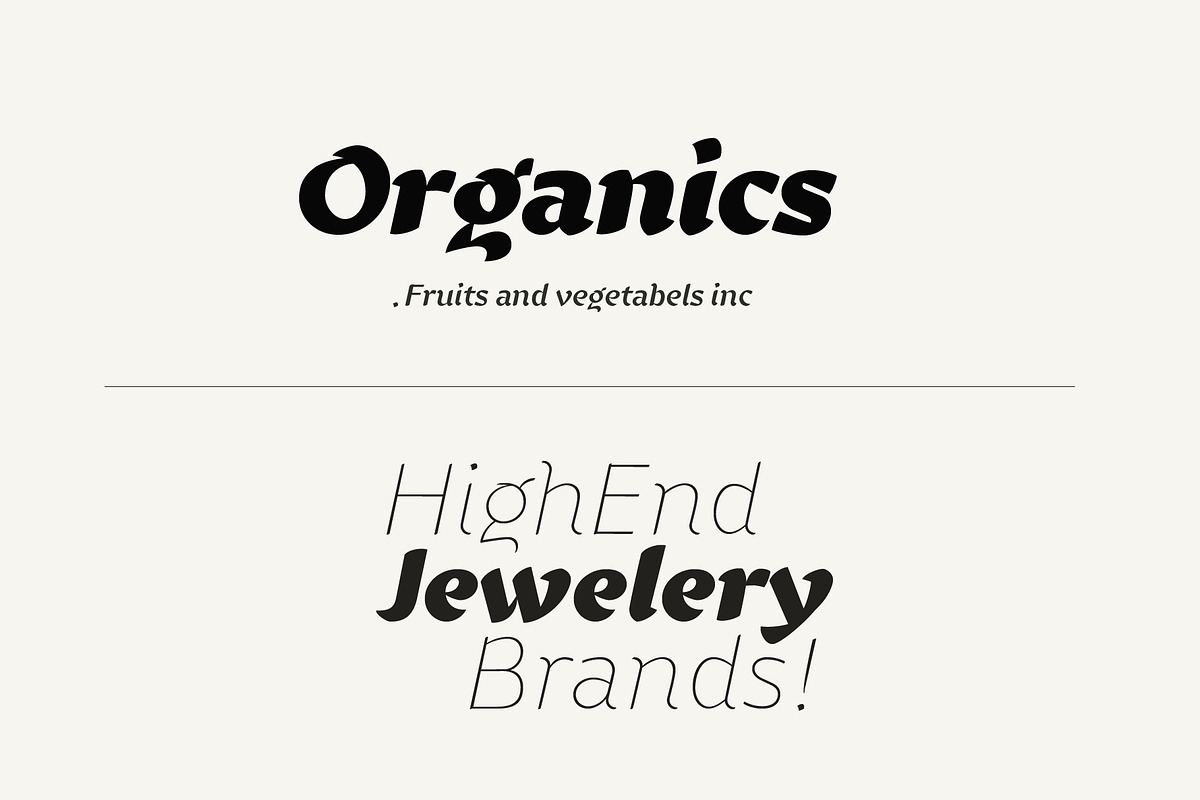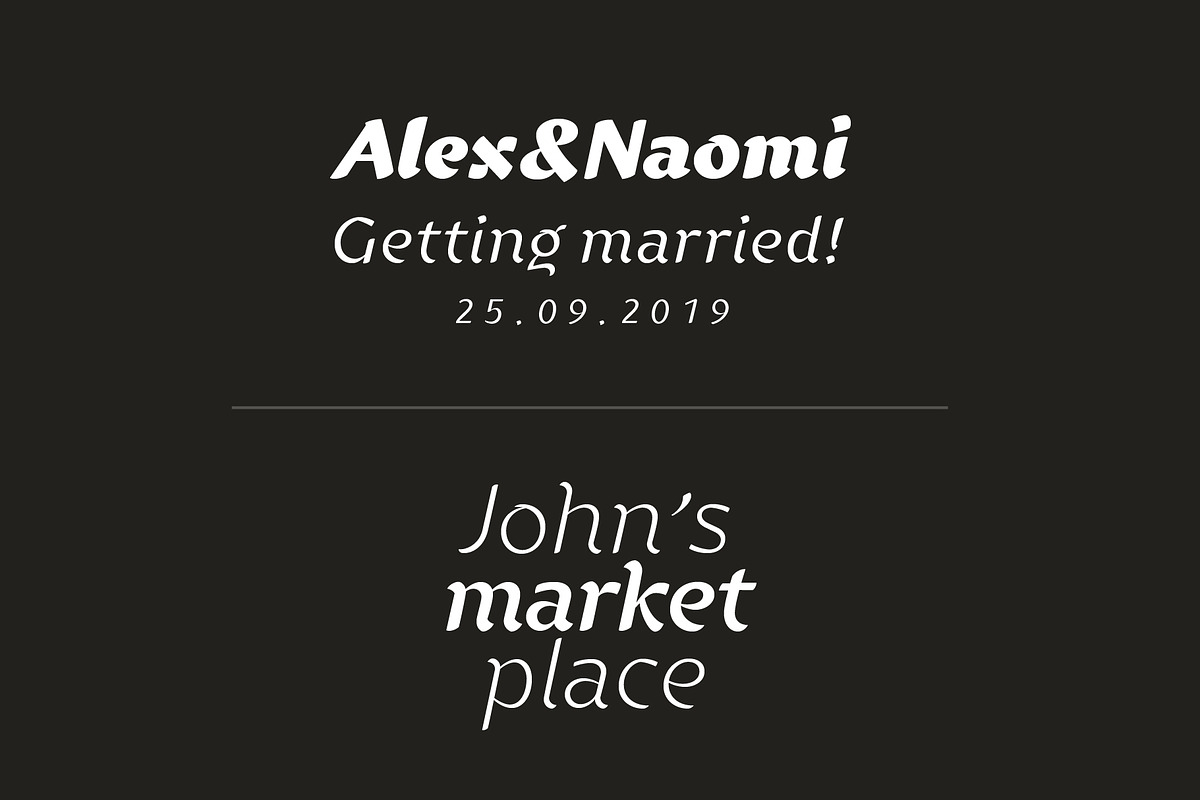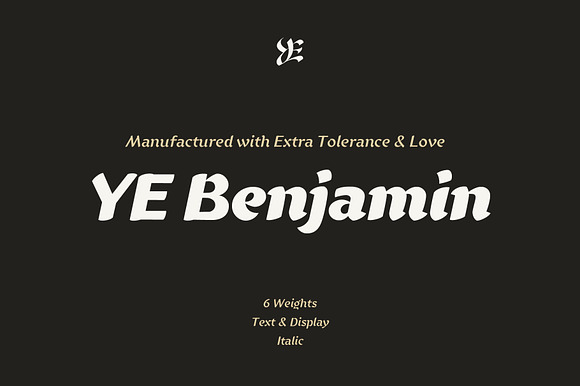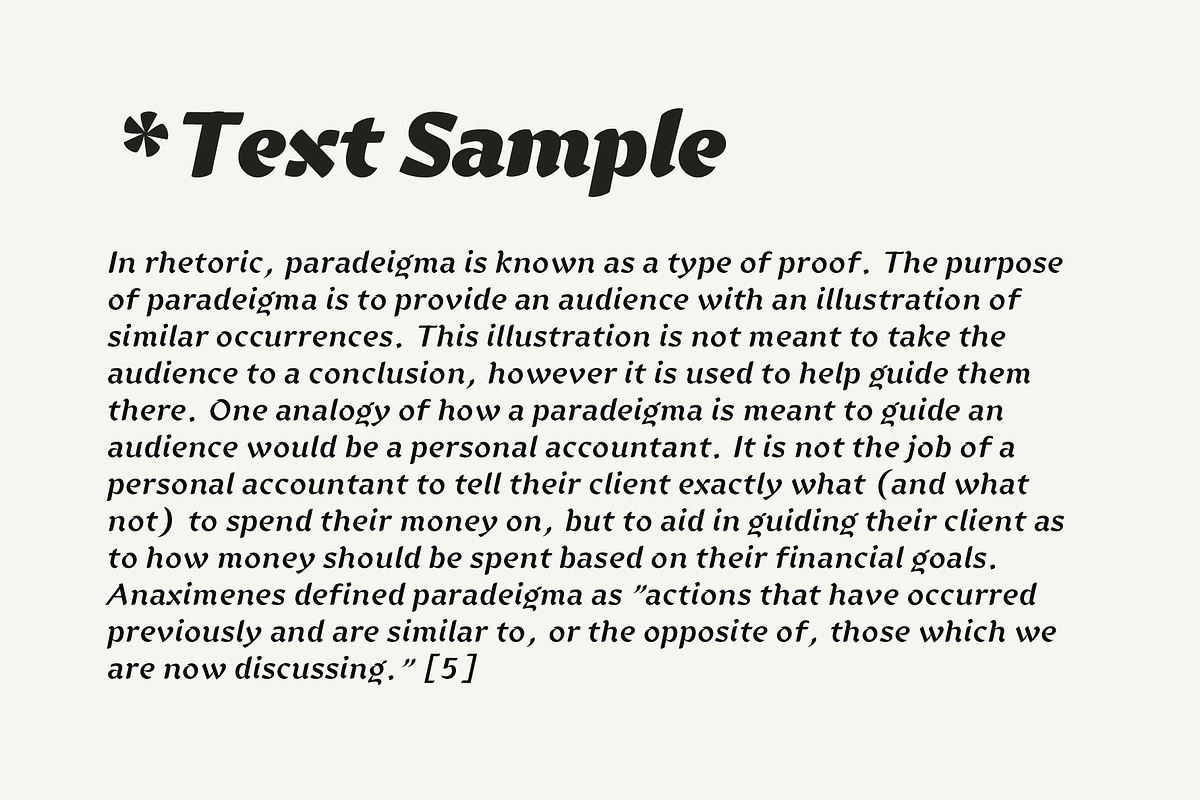
YE Benjamin Font
YE Benjamin, is a decorative italic font, with lots of blinks and twists, yet built with plain shapes.
- YE Benjamin Thin
- YE Benjamin ExtraLight
- YE Benjamin Light
- YE Benjamin Regular
- YE Benjamin Bold
- YE Benjamin UltraBold
Why YE Benjamin Font is worth a look
YE Benjamin Font by Yinon Ezra fits naturally into Branding, posters, packaging, typography.